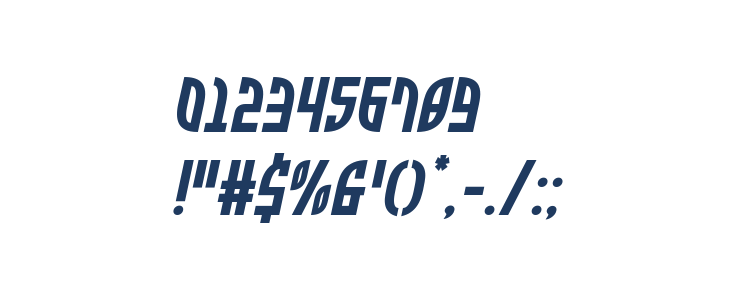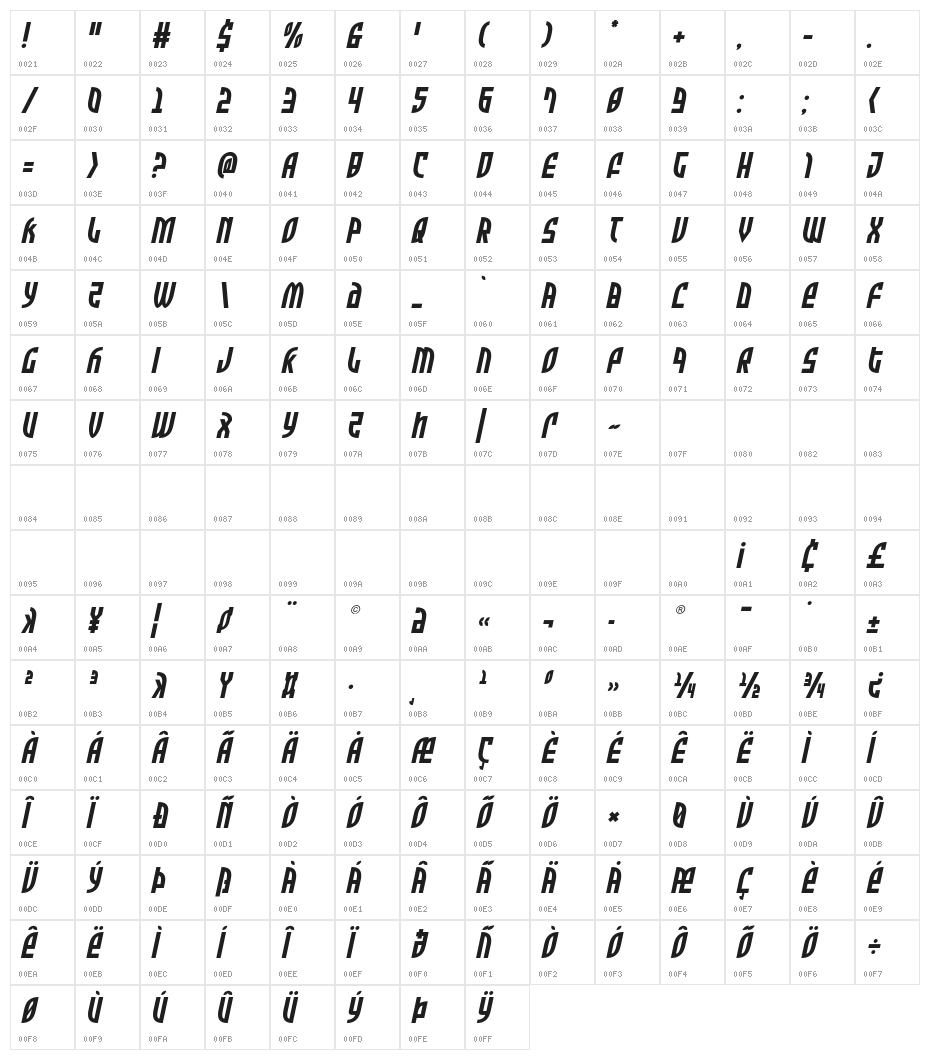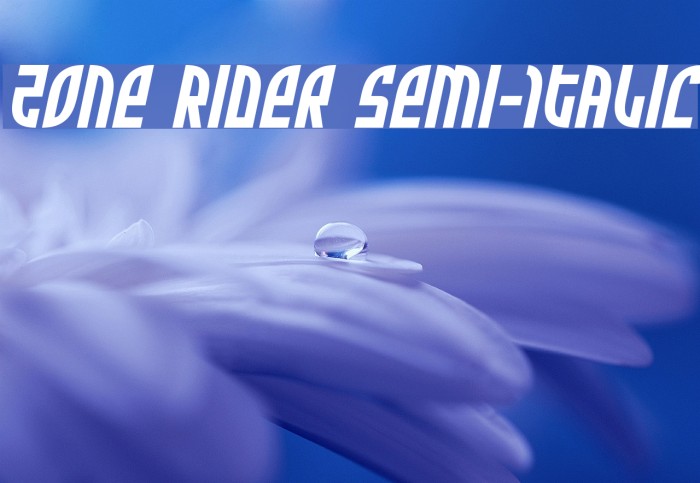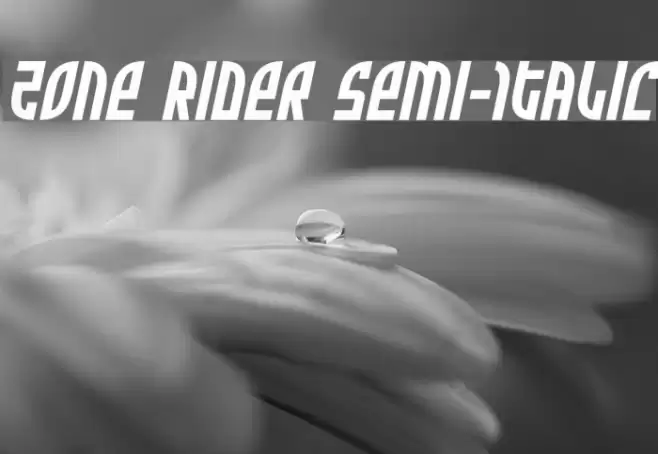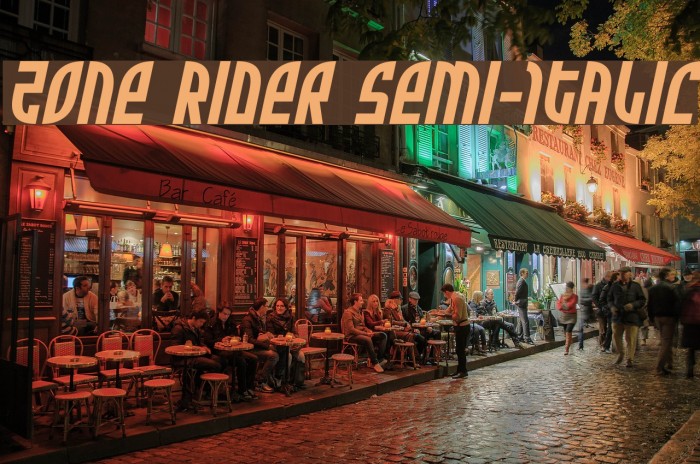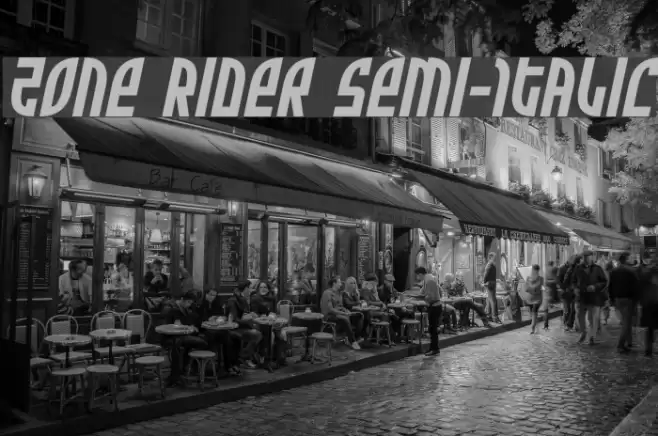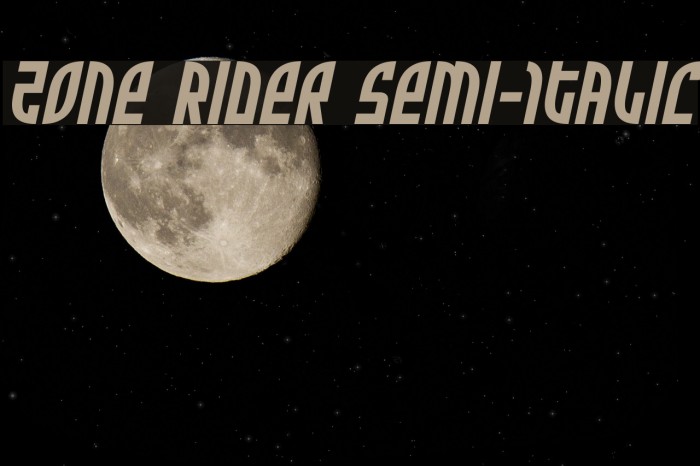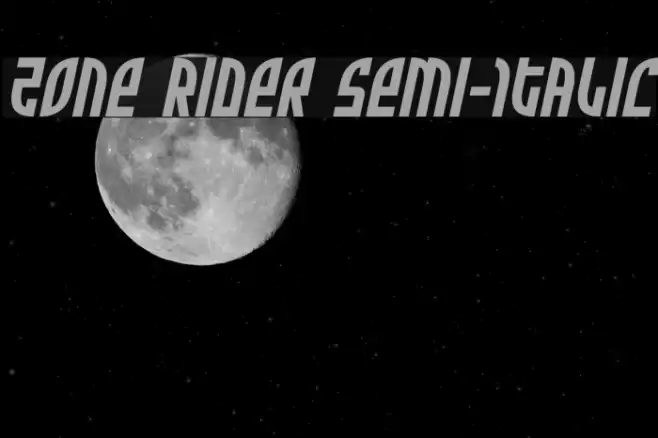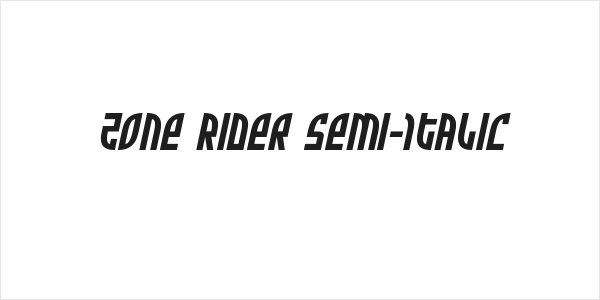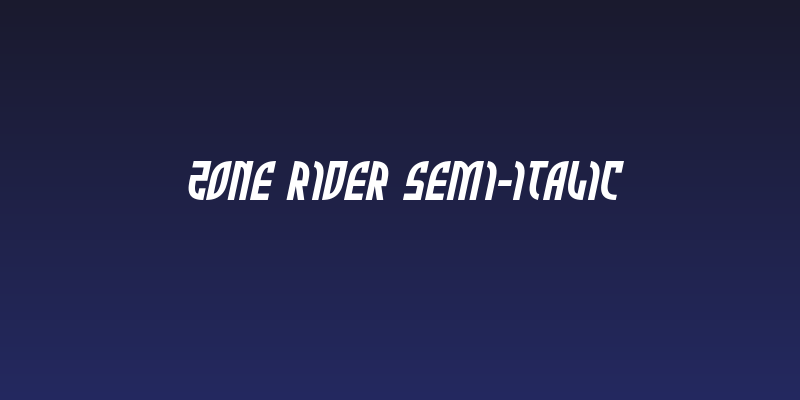
Zone Rider Semi-Italic Font
Zone Rider Semi-Italic Description
This font features a bold, dynamic style with a forward-leaning italic slant, giving it a sense of motion and energy. The characters are wide and have a strong presence, making them ideal for attention-grabbing headlines or titles. The strokes are consistent in thickness, providing a uniform appearance across all characters. The design includes both uppercase and lowercase letters, numerals, and a variety of special characters, all maintaining the same energetic and bold aesthetic. The font's unique style makes it suitable for projects that require a modern and edgy look.